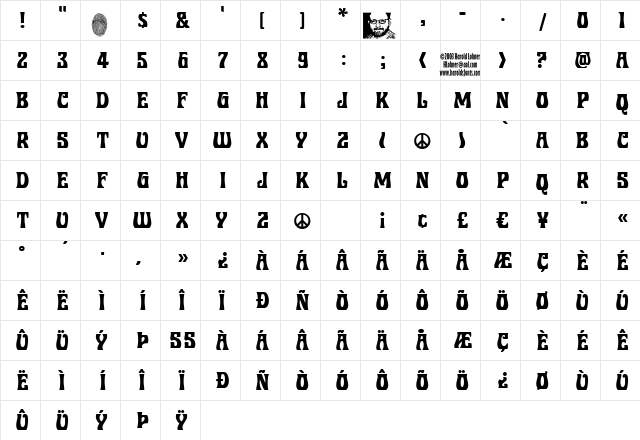
Roberta Raised ShadowFill Regular
Design Context for Roberta Raised ShadowFill Typeface
Roberta Raised ShadowFill is built around its visual character rather than neutral utility — its distinctive forms are designed to make an impression at display sizes.
Font Pairing: Pair with a clean neutral sans-serif for body copy to let Roberta Raised ShadowFill's character lead without overwhelming the composition.
Pro Tip: Use Roberta Raised ShadowFill exclusively at display sizes — it was designed to be seen, not read at length. Let a neutral companion handle body copy.